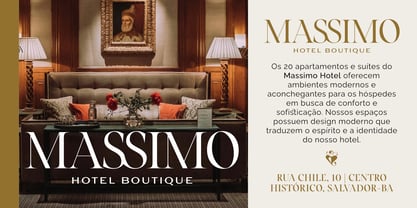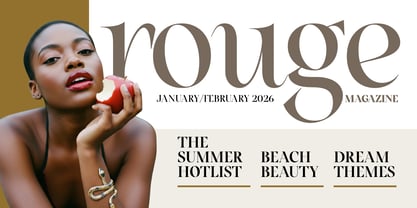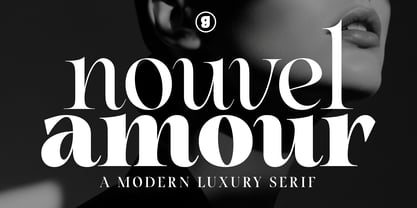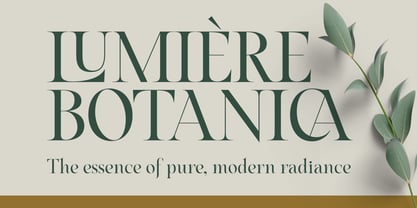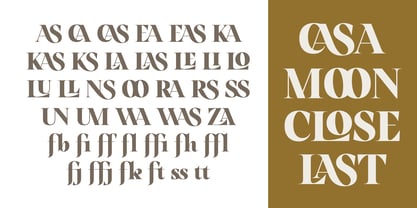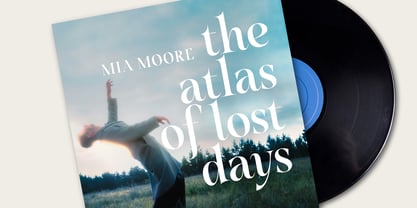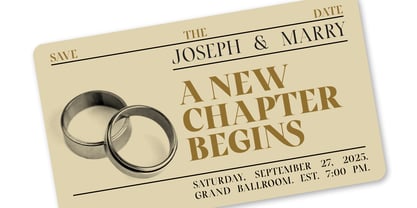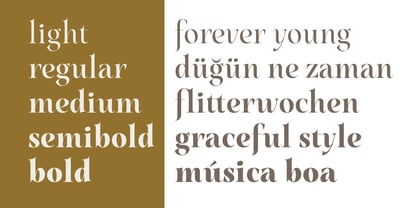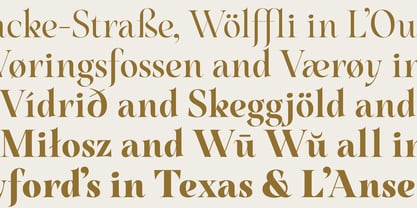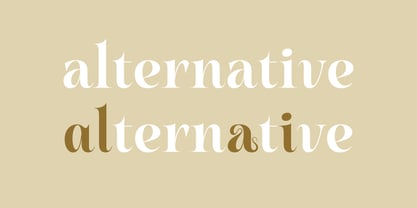
Nouvel Amour
The Nouvel Amour Font Family was designed by Genilson Santos and published by Genilson Santos. Nouvel Amour contains 5 styles and family package options. More about this family
Meet Nouvel Amour, a high-contrast serif typeface designed for creators who seek immediate sophistication. Balancing classic elegance with a bold contemporary spirit, this font captures the essence of high-fashion magazines and the delicacy of modern romance. Whether you are crafting a distinct brand identity or a memorable wedding suite, Nouvel Amour provides the personality needed to turn short texts and headlines into visual masterpieces. Available as a complete font family with 5 styles from Light to Bold, allowing you to create perfect visual hierarchy in your layouts and highlight what truly matters. Perfect for: Luxury Branding (Create high-end logos for boutiques, hotels, cosmetics, and jewelry brands), Editorial Design (Magazine headlines, book covers, and fashion blog layouts), Wedding & Event Stationery (Invitations, menus, and save-the-dates that require a romantic, refined touch), Packaging Design (Labels that communicate premium quality and purity), Social Media (Short quotes and titles that stop the scroll). Add a touch of "New Love" to your design toolkit today.